18 Best Rounded Sans Serif Fonts for Modern Branding
Rounded sans serif fonts have become a staple in modern branding for one simple reason: they feel approachable without looking childish. The best ones combine geometric structure with softer edges, giving logos, websites, packaging, and apps a more human tone.
Over the last few years, a lot of startups, SaaS brands, lifestyle products, and even fintech companies have shifted toward rounded typography because it works across both digital and print environments. A well-designed rounded font can make a brand feel cleaner, more modern, and easier to trust.
18 Best Rounded Sans Serif Fonts for Modern Branding
1. Geonowa
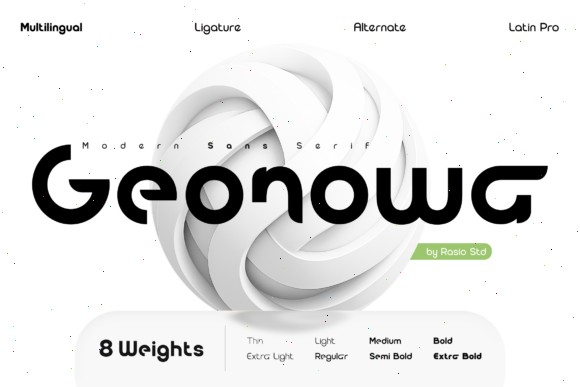
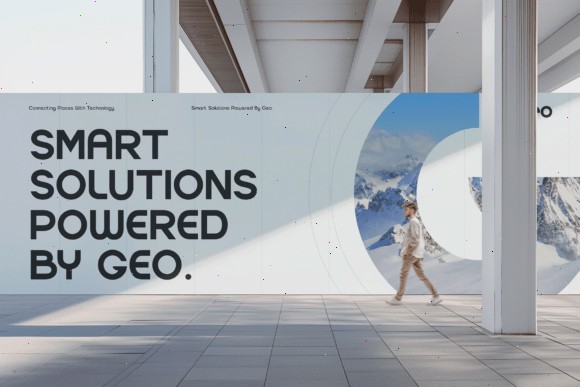
Geonowa is one of the strongest modern geometric options on this list. It uses circular construction, balanced proportions, and soft terminals without becoming overly playful.
What stands out most is its flexibility. The multiple weights make it useful for:
- SaaS dashboards
- Startup branding
- App UI systems
- Editorial headlines
It has the clean โtech companyโ aesthetic many newer brands are aiming for right now.
2. Lemora
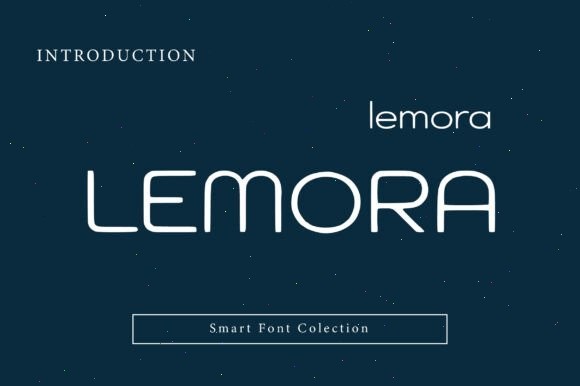
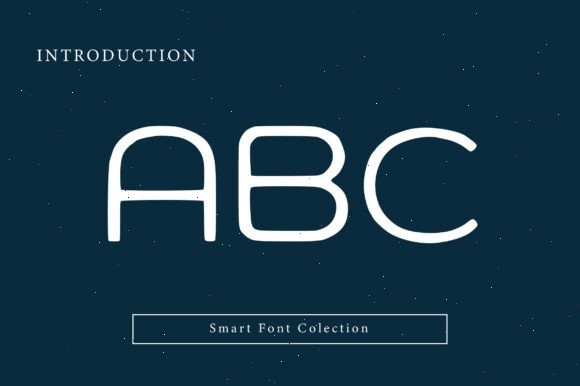
Lemora leans softer and more elegant than Geonowa. Its open letterforms and consistent stroke widths give it a refined but approachable look.
This font works particularly well for:
- Lifestyle brands
- Creative agencies
- Wellness products
- Modern mobile apps
The spacing feels polished straight out of the box, which saves time during logo refinement.
3. Corpoa
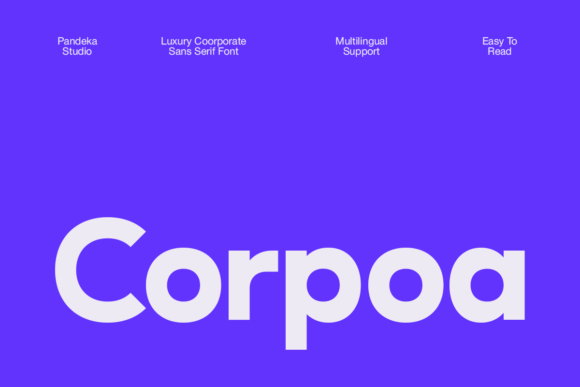
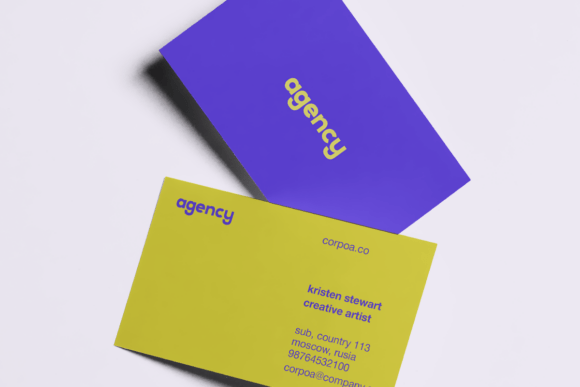
Corpoa sits somewhere between corporate and friendly. It keeps the structure of a professional sans serif while introducing softer edges and warmer curves.
For branding systems that need professionalism without feeling cold, Corpoa is a strong middle ground.
4. TRT Structa Pro
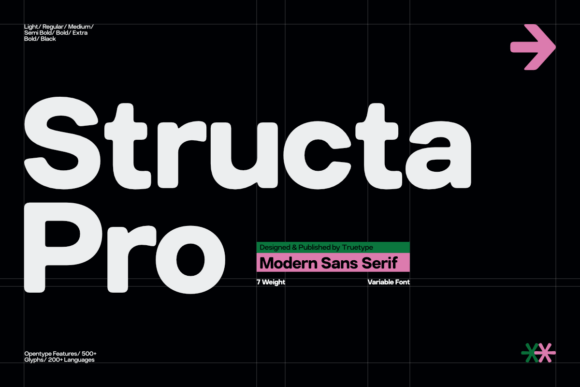
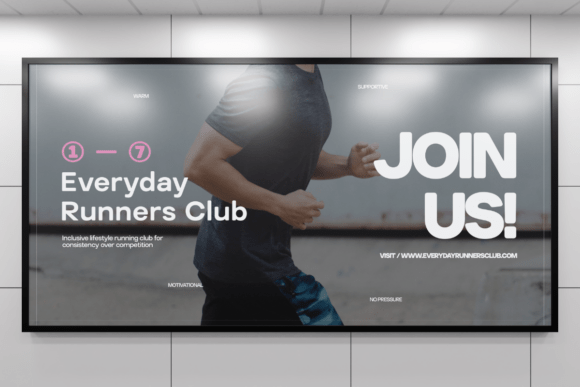
TRT Structa Pro is probably the most versatile type family here. Itโs built on a semi-grotesque foundation but softened with rounded terminals and balanced proportions.
A few things make it especially useful:
- Multiple weights
- Variable font support
- Excellent readability
- Strong UI compatibility
This is the kind of font family that can handle an entire brand system from website navigation to product packaging.
5. Metha
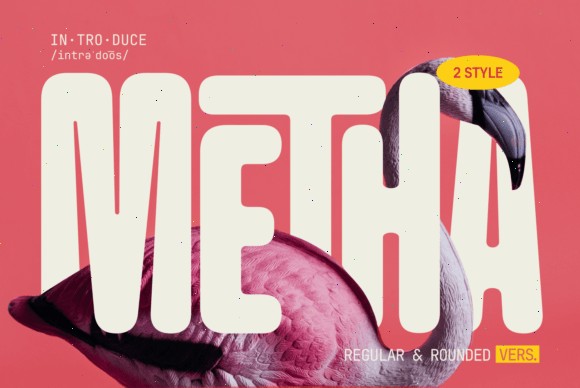
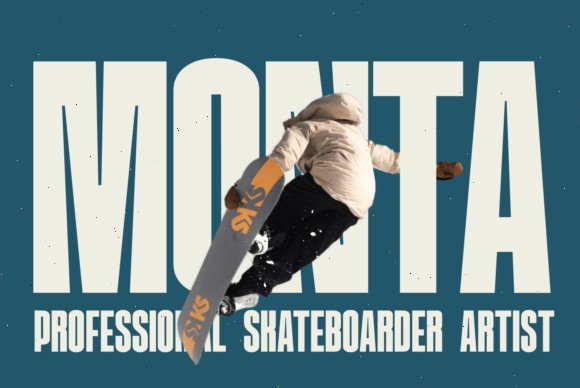
Metha combines bold proportions with rounded styling in a way that still works for body text.
Many rounded fonts are display-only, but Metha holds up surprisingly well in:
- Landing pages
- Mobile interfaces
- Social graphics
- Marketing materials
The wide letterforms also give logos a more stable visual presence.
6. Regiko
Regiko has more personality than most minimal rounded fonts thanks to its unique lowercase details and looping curves.
It feels custom without becoming difficult to read.
This makes it especially good for:
- Food brands
- Boutique startups
- Beverage packaging
- Consumer-facing apps
7. Arc Space
Arc Space pushes harder into futuristic territory with aerodynamic curves and geometric construction.
It works best for:
- Tech branding
- Gaming projects
- Automotive visuals
- Sci-fi inspired marketing
Used carefully, it creates a very modern visual identity without looking clichรฉ.
8. Moder
Moder is a heavy rounded display font designed for strong visual impact.
The bold weight works extremely well in:
- Posters
- Packaging
- Headlines
- Social media campaigns
For minimalist branding, pairing Moder with a neutral secondary font creates a clean balance.
9. Oranica
Oranica keeps things simple, smooth, and highly usable.
Itโs one of the safer choices for broad commercial work because it adapts easily across:
- Websites
- Logos
- Packaging
- Editorial layouts
Not every project needs extreme personality. Sometimes versatility wins.
10. Arzetie
Arzetie focuses heavily on readability and balanced proportions.
Itโs particularly effective for:
- Corporate branding
- UI systems
- Presentation decks
- Editorial layouts
The clean structure gives it long-term usability rather than trend-heavy styling.
11. Celino
Celino uses geometric curves with strong rounded forms that feel modern without becoming overly soft.
Can rounded fonts work for professional brands?
Absolutely. Many modern rounded sans serif fonts are designed specifically for corporate identity, UI systems, and professional branding projects.